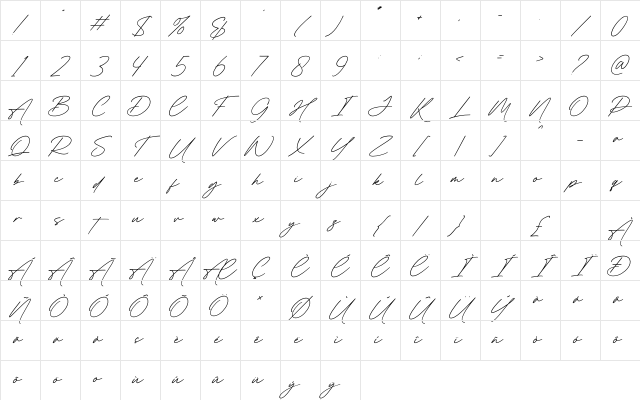
Hoper Begin Regular Free Font
Hoper Begin Regular
Foundry: RantauType
Designer: Yudi Pratama Chandra
Design Context for Hoper Begin
Hoper Begin is a composed and adaptable typeface that performs quietly and consistently across a wide range of design contexts.